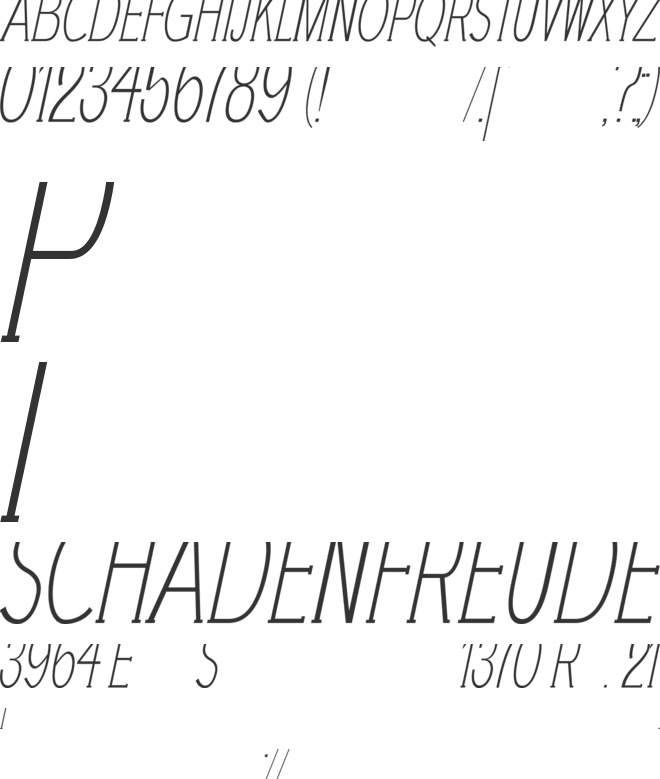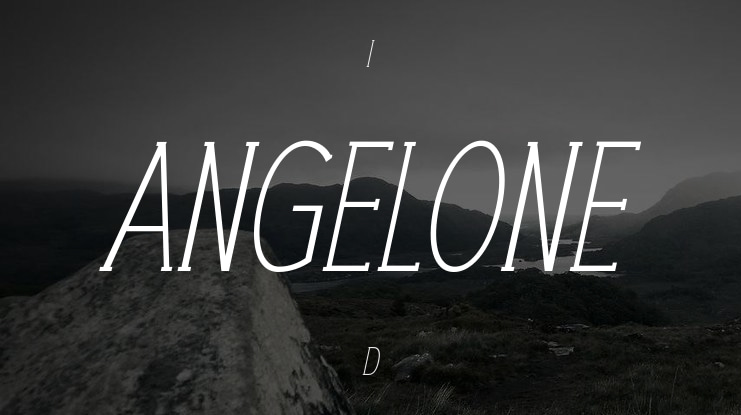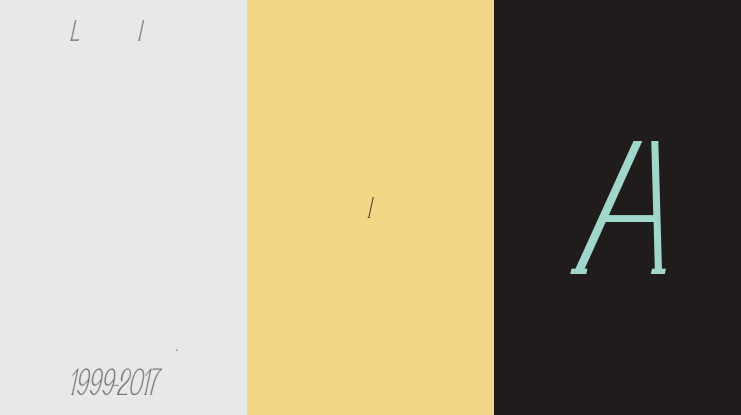
ANGELONE Font Family
🎨 Font Name: ANGELONE by Minimalist Art Studio
🎨 Font Description: ANGELONE is a clean thin slab serif with soft clarity and emotional depth, ideal for lifestyle, branding, and editorial design.